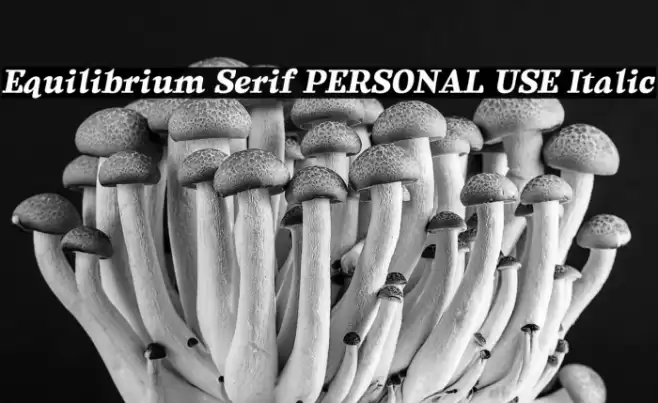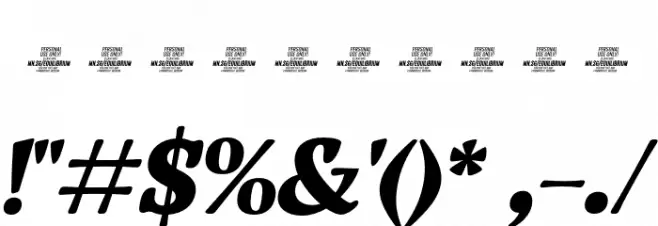
Equilibrium Serif PERSONAL USE Italic Font
Equilibrium Serif PERSONAL USE Italic Description
This serif font features a classic and elegant design with a distinct italic style. The characters exhibit a slight slant, adding a dynamic and sophisticated touch. The strokes are moderately thick, providing a medium contrast that enhances readability while maintaining a stylish appearance. The uppercase letters are bold and commanding, while the lowercase letters are more refined and flowing. The special characters are well-integrated, maintaining the overall aesthetic of the font. This font is versatile, suitable for various design projects that require a touch of elegance and tradition.
A classic serif font with an elegant italic style and medium contrast from Uncategorized fonts.
- Overall Style: Classic